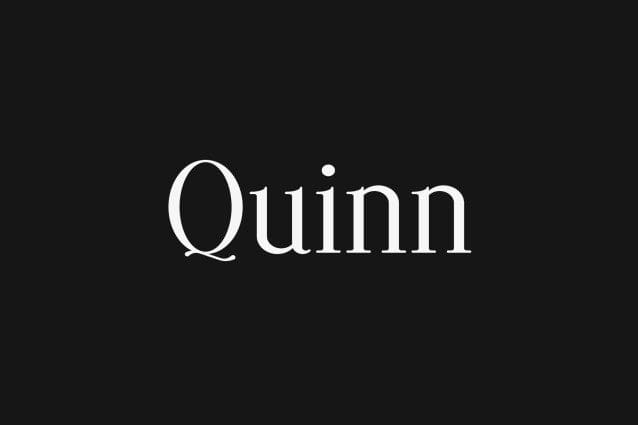
Quinn Font
Quinn Font is an elegant and versatile serif font that will make your typography truly unique! It will enchant every logo, branding, headline, or plain text!